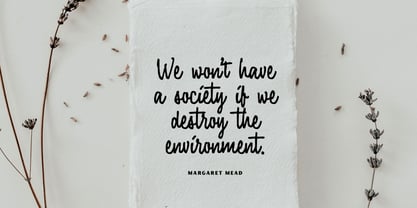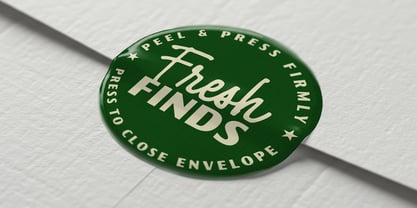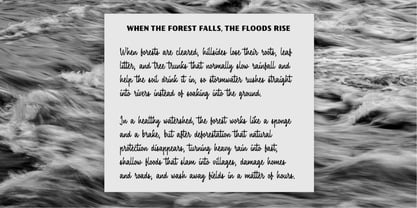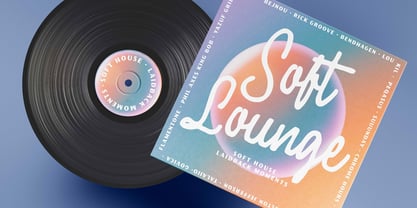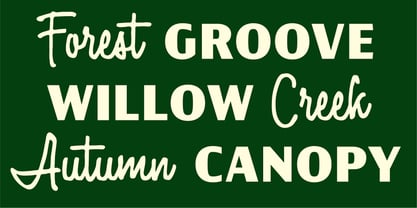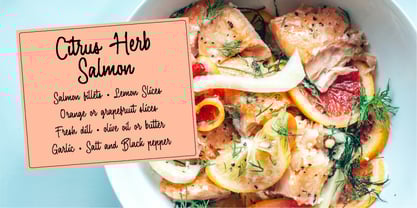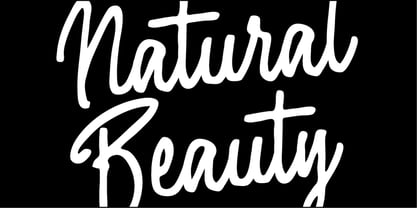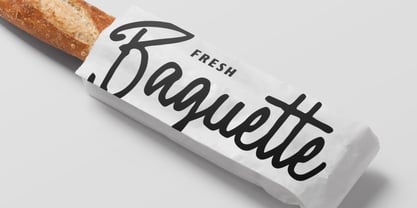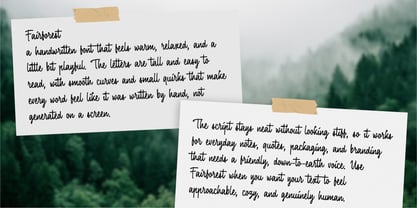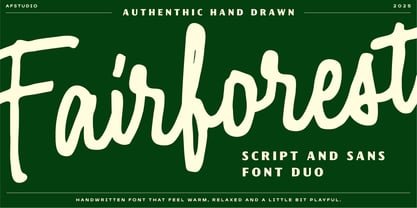
Fairforest
by Adam Fathony
The Fairforest Font Family was designed by Adam Fathoni Haris, Angga Kristiandri and published by Adam Fathony. Fairforest contains 2 styles and family package options.
Fairforest is a charming handwritten font that exudes warmth, relaxation, and a touch of playfulness. Its tall, easy-to-read letters feature smooth curves and delightful quirks, ensuring that every word appears as if it was penned by hand rather than generated on a screen. The script maintains a neat appearance without sacrificing personality, making it ideal for everyday notes, inspirational quotes, packaging, and branding that seeks a friendly, down-to-earth voice. Choose Fairforest when you want your text to convey an approachable, cozy, and genuinely human feel. To enhance versatility, Fairforest also includes a clean sans serif companion font. This all-caps typeface is simple yet sturdy, making it perfect for titles, taglines, and subtle details. It features numbers, punctuation, and multilingual support, allowing you to create complete layouts using just this dynamic duo.
Designers: Adam Fathoni Haris, Angga Kristiandri
Publisher: Adam Fathony
Foundry: Adam Fathony
Design Owner: Adam Fathony